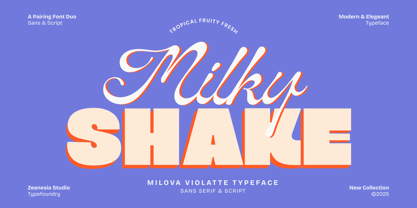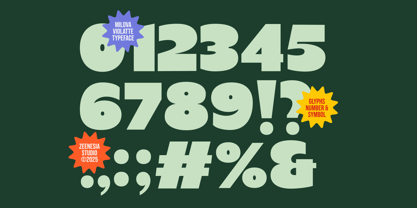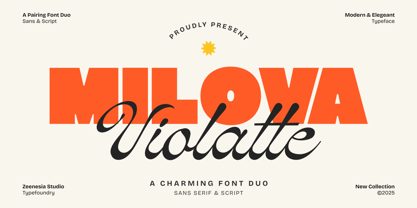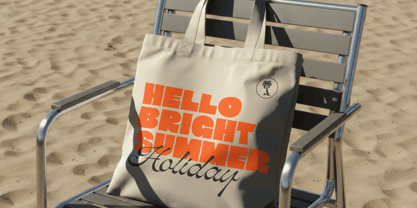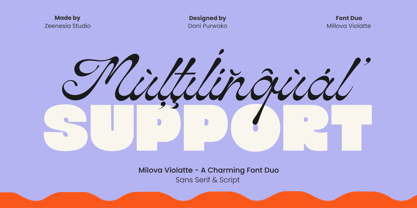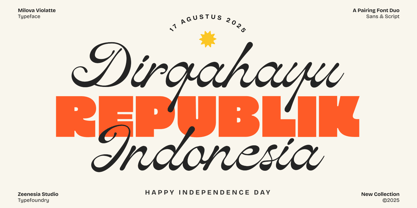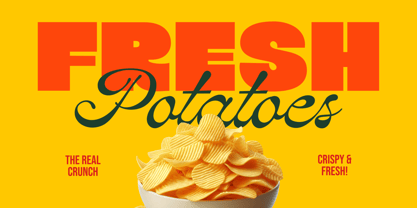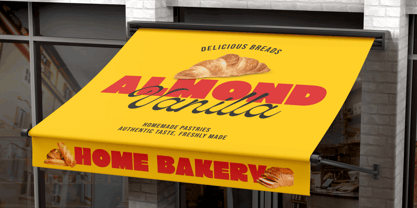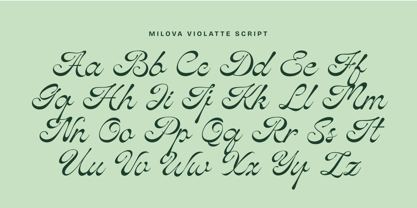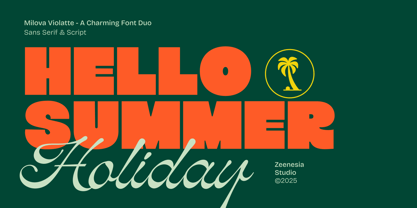
Milova Violatte
by Zeenesia Studio
The Milova Violatte Font Family was designed by Doni Purwoko and published by Zeenesia Studio. Milova Violatte contains 2 styles and family package options.
Milova Violatte – A Charming Font Duo
Milova Violatte is a stylish and versatile font duo that perfectly combines the bold confidence of a modern sans serif with the graceful flow of an elegant script. Designed to create a striking visual harmony, this pairing is ideal for projects that require both strength and sophistication.
The sans serif style delivers a clean, impactful, and contemporary look, making it perfect for headlines, posters, and branding. Meanwhile, the script style adds a touch of charm and refinement, suitable for invitations, logos, packaging, and editorial design.